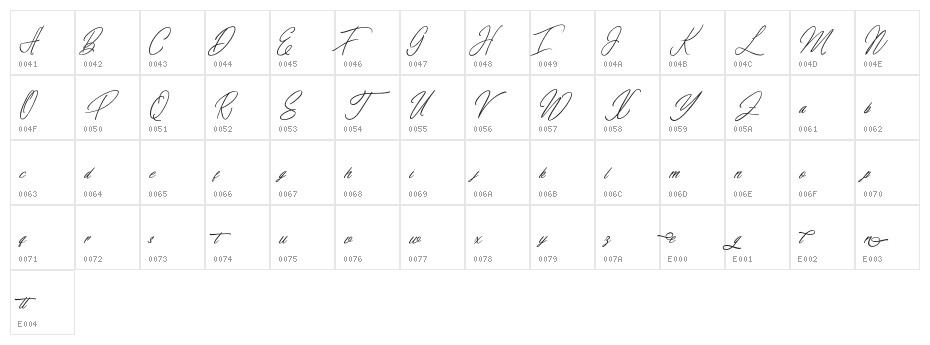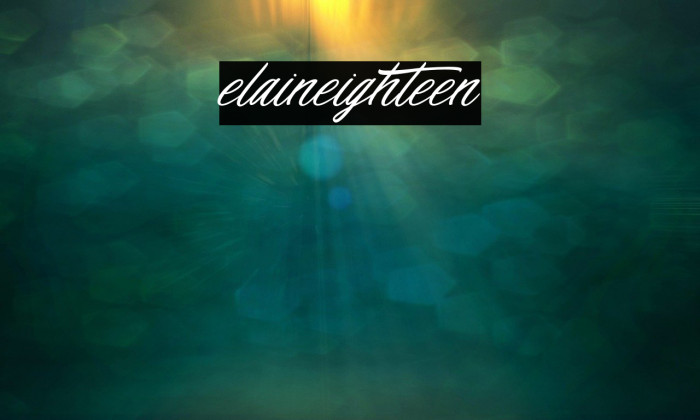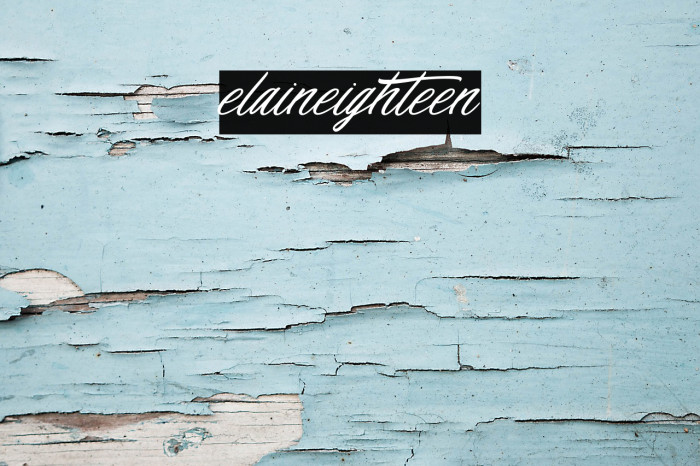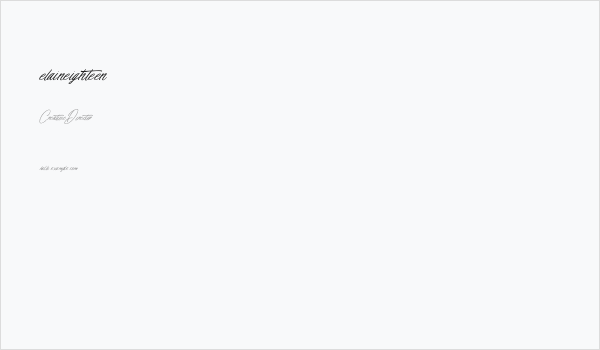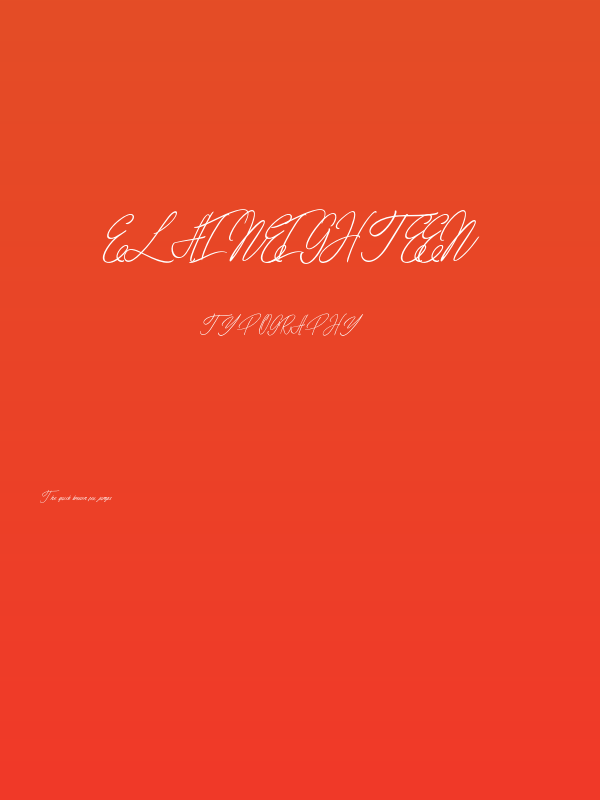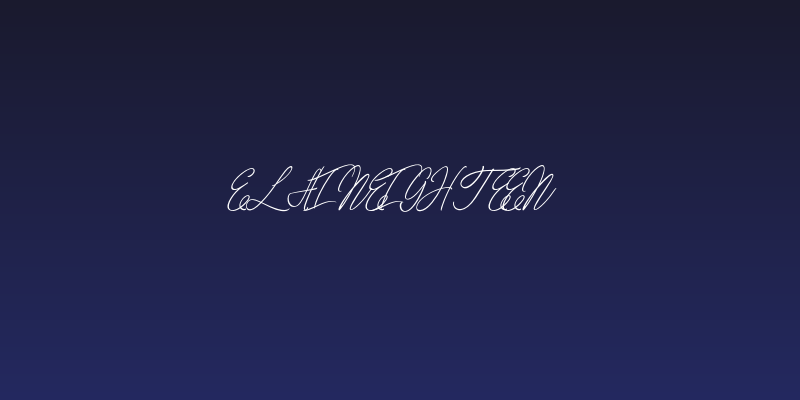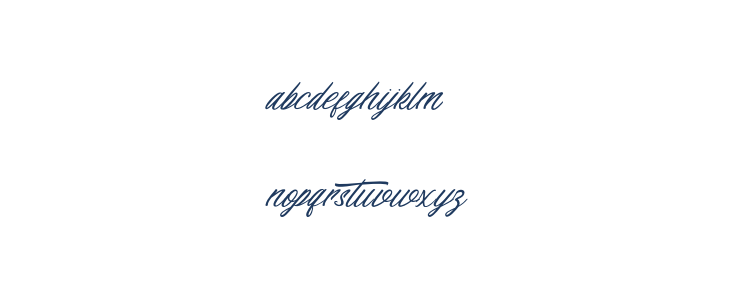
elaineighteen Font
elaineighteen Description
This elegant script font features flowing, interconnected letters that mimic the fluidity of cursive handwriting. The uppercase letters are grand and sweeping, with intricate loops and flourishes that add a touch of sophistication. The lowercase letters maintain a consistent style, with smooth curves and a slight slant that enhances readability. The font's overall appearance is graceful and refined, making it suitable for formal invitations, branding, and decorative purposes. Its artistic flair is balanced by a clear structure, ensuring that each character is distinct and legible.
| Use Case | Invitations, Branding, Decorative |
| Proposed Projects | Ideal for wedding invitations, elegant branding, greeting cards, and decorative signage. |